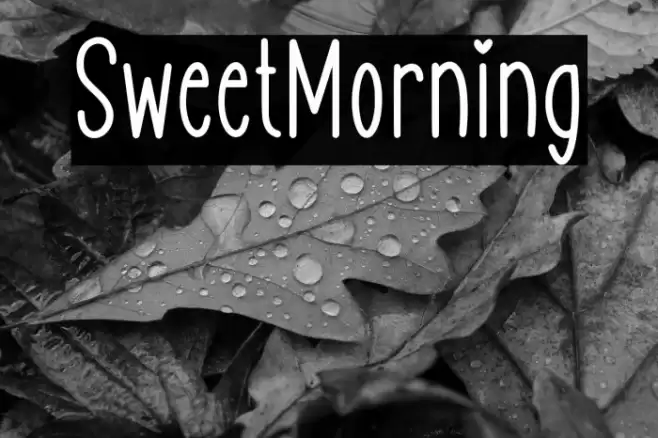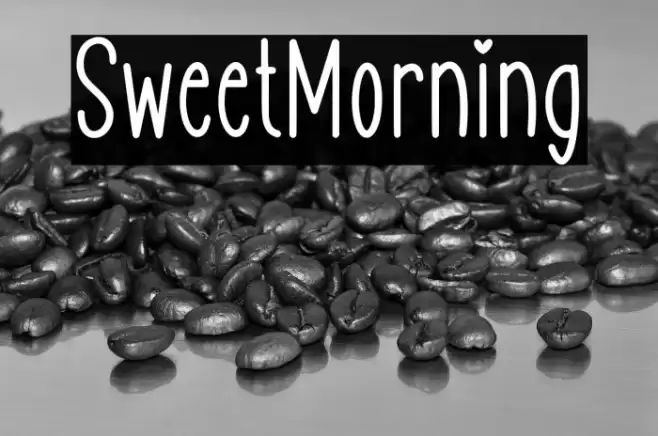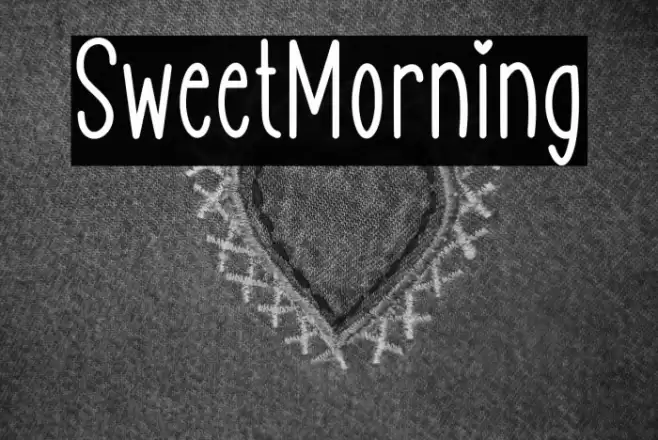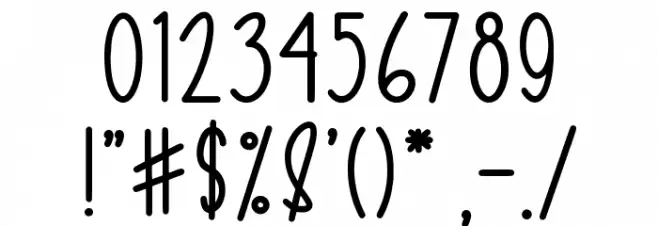
SweetMorning Font
SweetMorning Description
This font features a playful and whimsical style, characterized by its tall, narrow letters with rounded edges. The uppercase letters are slightly taller than the lowercase, maintaining a consistent width throughout. The strokes are smooth and even, giving it a friendly and approachable appearance. The numerals are well-proportioned, matching the overall height of the uppercase letters. Special characters are included, maintaining the same playful aesthetic. This font is ideal for projects that require a touch of fun and creativity, such as children's books, playful branding, or casual invitations.
A playful and whimsical font with tall, narrow letters and rounded edges from Regular fonts.
- Proposed Projects: Ideal for children's books, playful branding, casual invitations, and creative projects.
- Overall Style: Playful
- Use Case: Headlines, Logos, Invitations